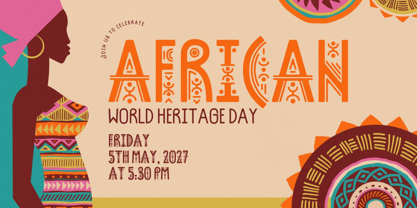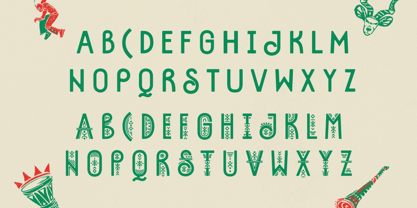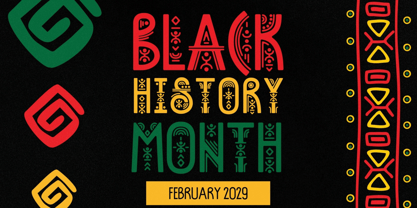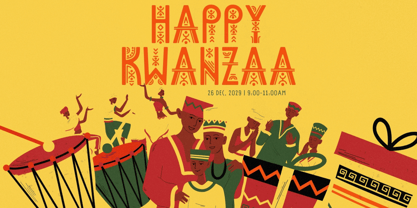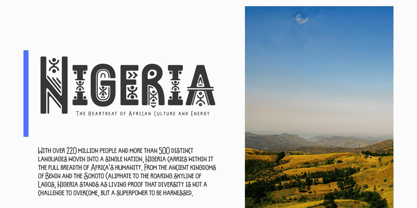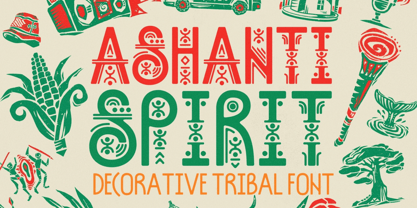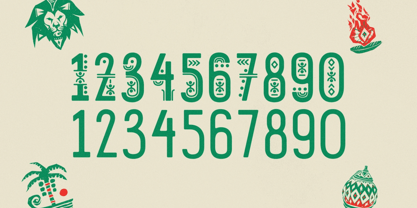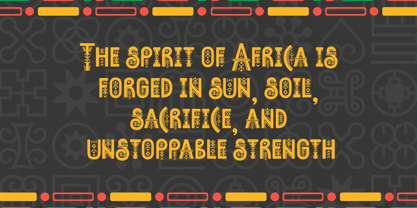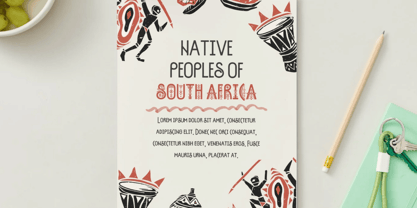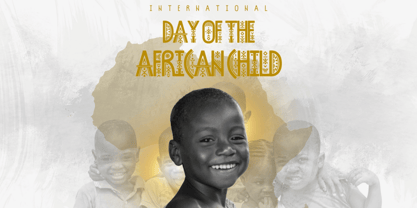
Ashanti Spirit
The Ashanti Spirit Font Family was designed by Igor Ovsyannykov and published by Hipfonts. Ashanti Spirit contains 2 styles and family package options. More about this family
Inspired by the rich visual heritage of West African artistry, Ashanti Spirit is a bold African tribal font duo designed to bring culture, rhythm, and storytelling into your creative work. This unique all-caps typeface set includes two complementary styles—one featuring expressive tribal-inspired ornamental details, and one clean companion version without the decorative elements for maximum versatility.
Rooted in the spirit of traditional African patterns, ceremonial markings, handcrafted symbolism, and ancestral storytelling, Ashanti Spirit balances authenticity with modern design usability. The ornamental version makes a powerful statement for headlines and branding, while the clean version offers flexibility for supporting text, logos, and layout design.
Perfect for cultural branding, music festival posters, apparel, packaging, editorial design, travel branding, documentary titles, event graphics, social media campaigns, and creative projects that demand strength, identity, and soul.